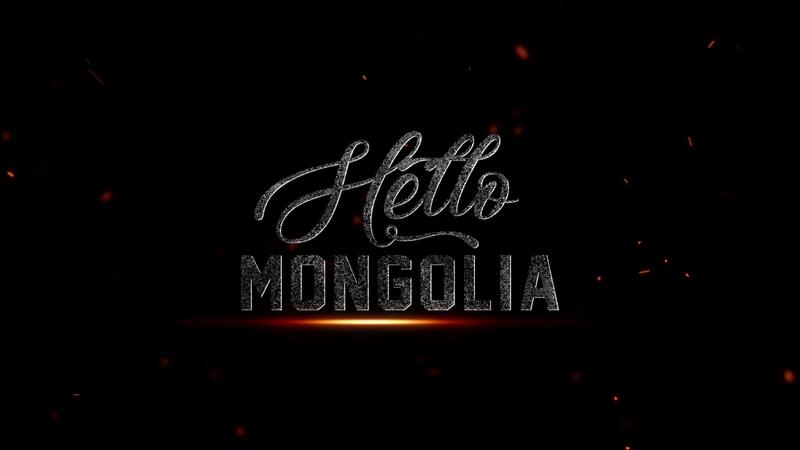
Hello Mongolia A powerful cinematic greeting rendered in a textured metallic font, with glowing sparks and a fiery underline against a dark, empty background Pro Video